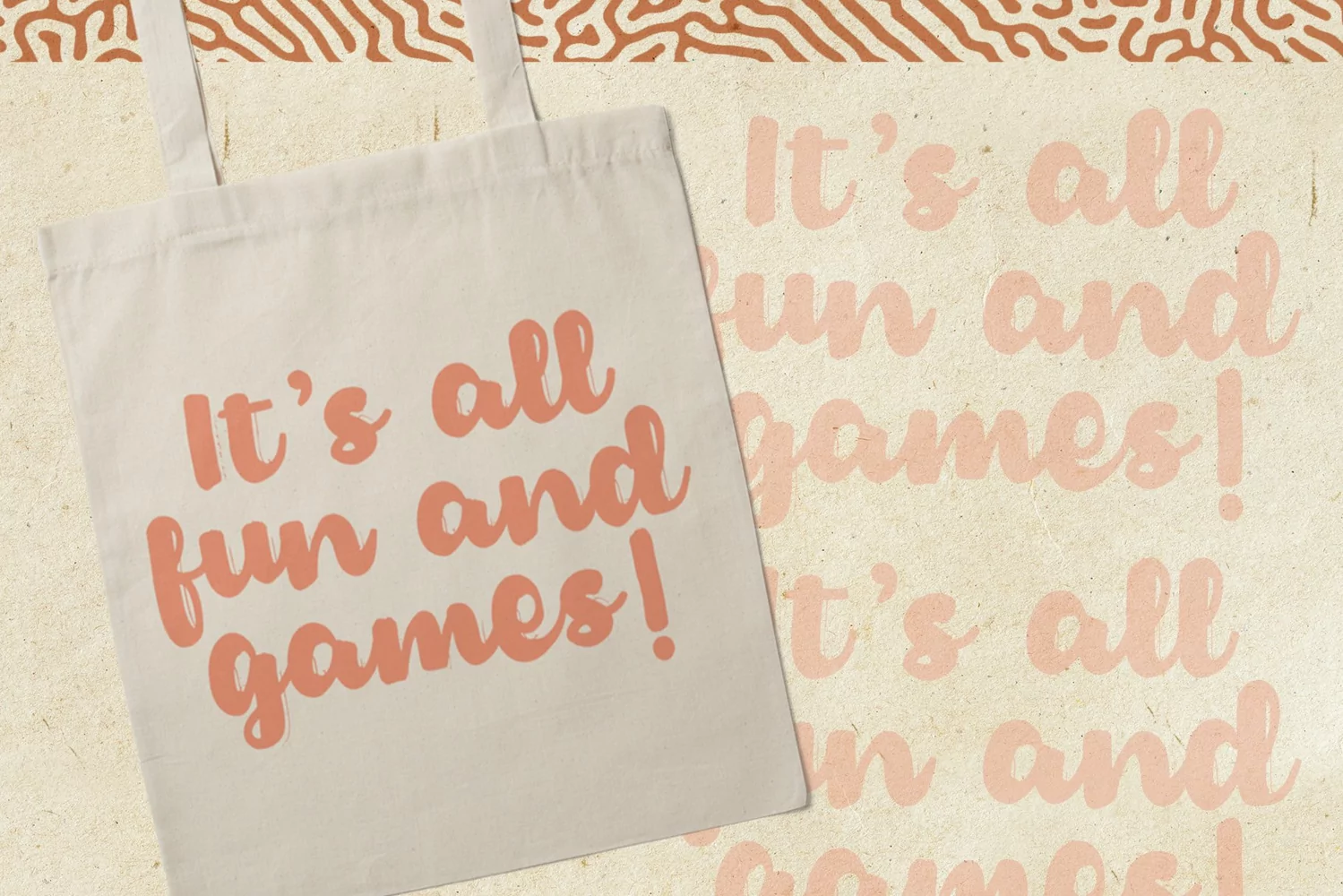
Gummpy is a Brush Script Typeface. Perfect for display, poster, quotes, logo, logotype, merchandise, packaging, print, t-shirt, mug, pin, header, tittle, business card, and many more.